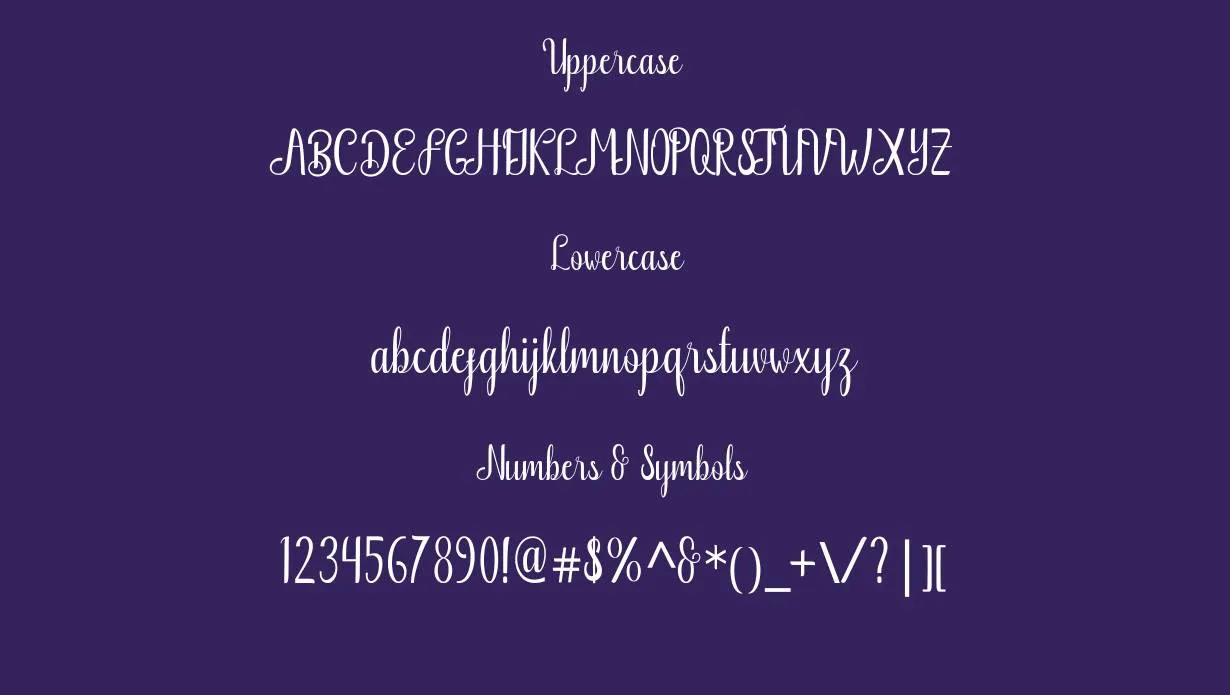
The Arthique Elegant font is renowned for its refined and graceful style. It serves as a go-to choice for those seeking a touch of sophistication in their designs.
| Name | Arthique Elegant Font |
| Designer | SheillaType |